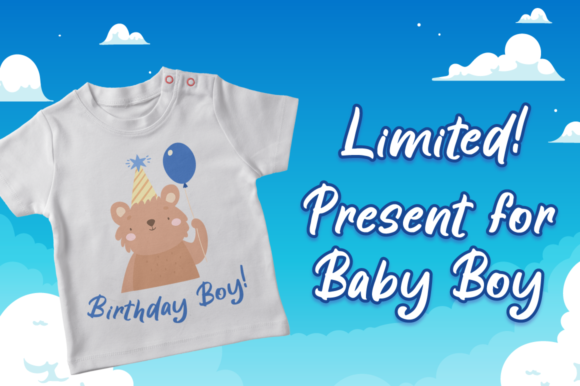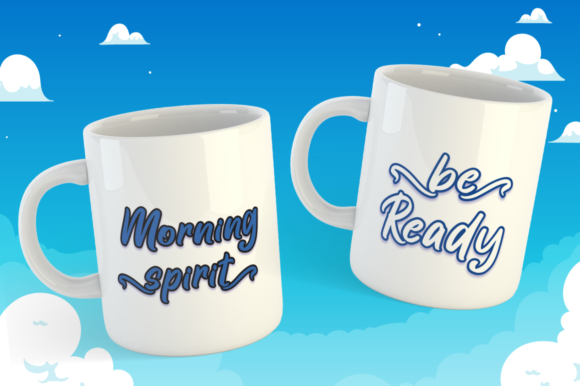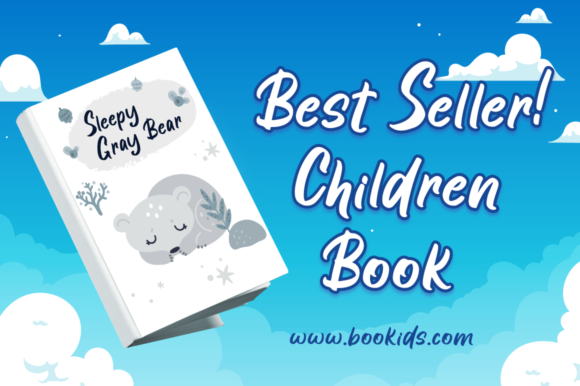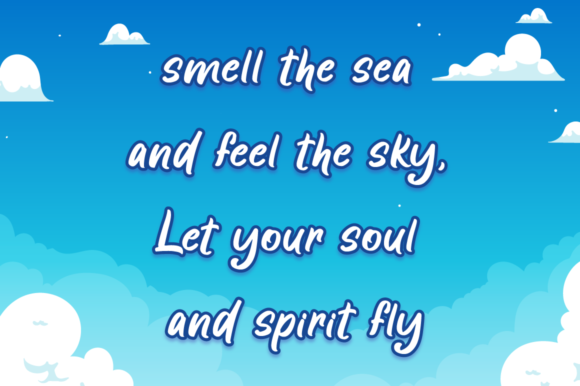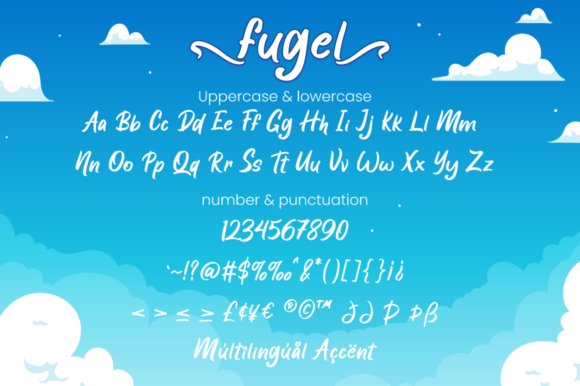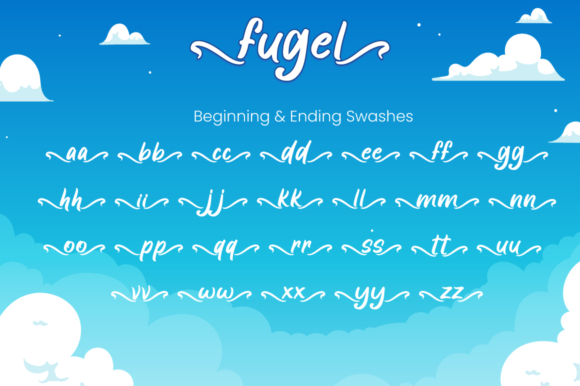
Fugel Font: Elevate Your Designs with a Delicate and Distinct Handwritten Style
In the world of typography, a font can make or break a design. For crafters, designers, and DIY enthusiasts, finding the perfect font can be a daunting task. However, if you’re looking for a delicate and incredibly distinct handwritten font, look no further than Fugel. This beautiful font is suitable for creating a wide range of designs, from branding and product packaging to invitations, quotes, t-shirts, labels, posters, and logos.
The Characteristics of Fugel Font
Fugel is a unique and elegant handwritten font that is sure to add a touch of sophistication to any design. Its delicate strokes and intricate details make it a standout among other fonts. The font’s distinct style is characterized by:
- Delicate and flowing strokes
- Incredibly distinct and legible
- Elegant and sophisticated feel
- Perfect for a wide range of design applications
Uses of Fugel Font
Fugel’s versatility makes it an excellent choice for various design projects. Here are some of the many ways you can use Fugel to elevate your designs:
Branding and Product Packaging
Create a lasting impression with Fugel’s elegant and sophisticated style. Use it to develop a brand identity that stands out from the competition. Whether you’re designing a logo, label, or packaging, Fugel is the perfect choice.
Invitations and Quotes
Add a touch of elegance to your invitations, quotes, and other stationery with Fugel. The font’s delicate strokes and intricate details make it perfect for creating beautiful and sophisticated designs.
T-Shirts and Apparel
Fugel is an excellent choice for designing t-shirts, hoodies, and other apparel. The font’s unique style will add a touch of personality to any garment, making it perfect for fashion brands, designers, and DIY enthusiasts.
Posters and Logos
Use Fugel to create stunning posters, logos, and other visual elements. The font’s distinct style will help your design stand out, making it perfect for advertising, marketing, and promotional materials.
Why Choose Fugel Font?
With so many fonts available, why choose Fugel? Here are just a few reasons why Fugel stands out:
- Unique and Distinct Style: Fugel’s delicate and intricate details make it a one-of-a-kind font that will set your designs apart.
- Versatility: Fugel is suitable for a wide range of design applications, making it an excellent addition to any designer’s toolkit.
- Elegance and Sophistication: Fugel’s elegant and sophisticated feel makes it perfect for designs that require a touch of refinement.
Tips for Using Fugel Font
To get the most out of Fugel, here are a few tips to keep in mind:
- Pair with Other Fonts: Experiment with pairing Fugel with other fonts to create a unique and visually appealing design.
- Adjust Font Size and Style: Play around with different font sizes and styles to add emphasis and create visual hierarchy.